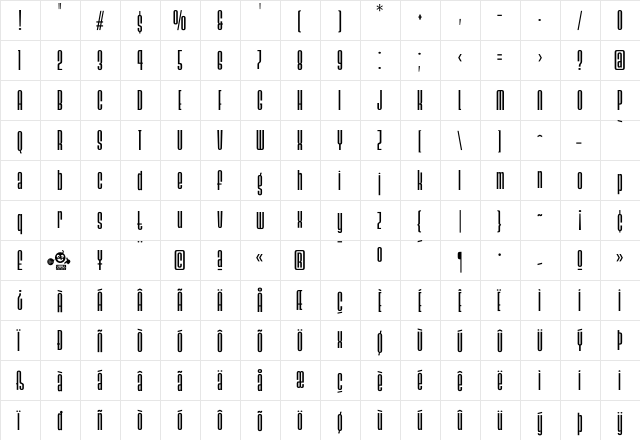
Ainsdale Medium
Design Context for Ainsdale Typeface
Ainsdale takes a measured approach to typography — its balanced proportions and neutral character make it a reliable workhorse for both digital and print work.